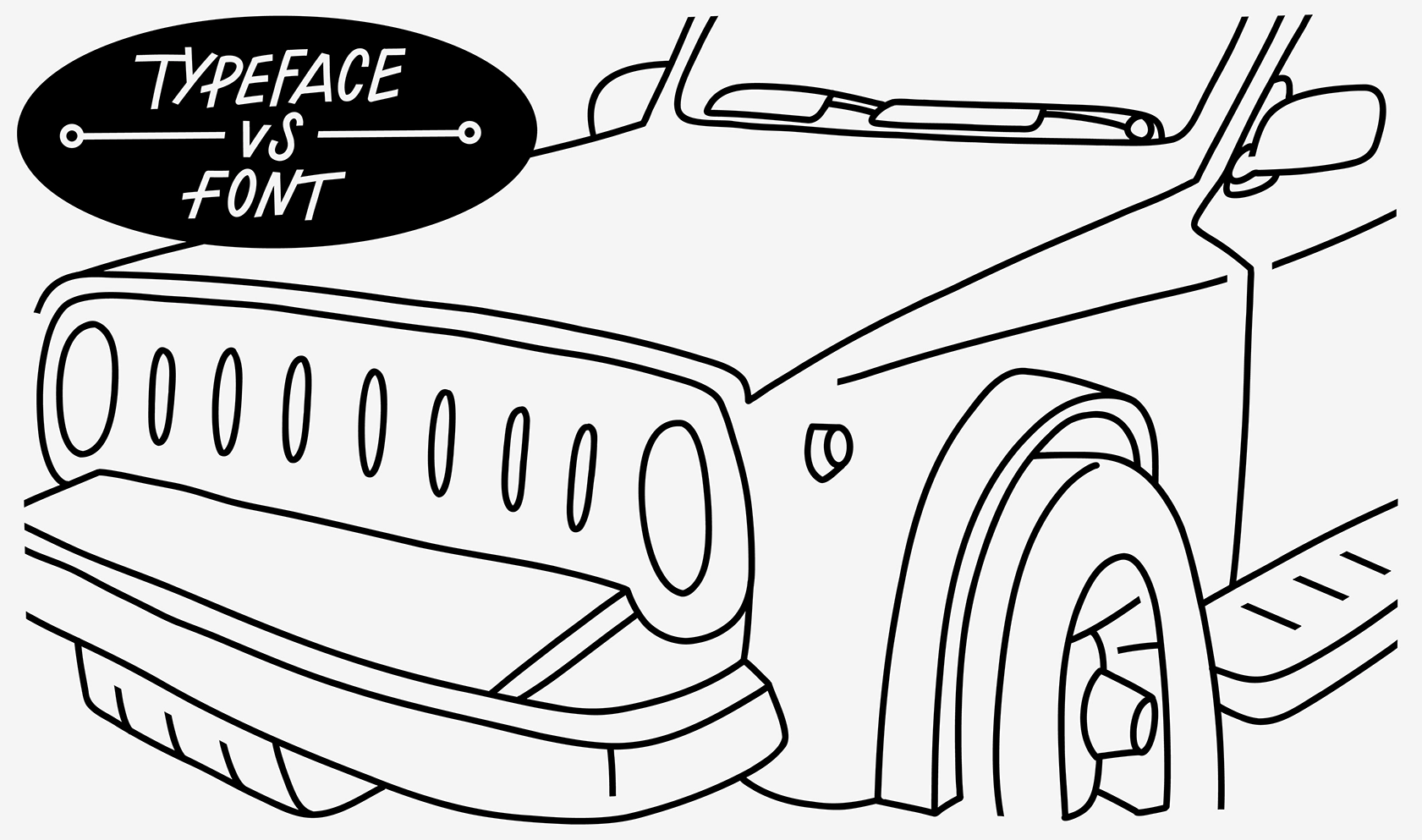
Typeface vs. font
Have you ever found yourself wondering whether you should use the term font or typeface? You don’t have to be a type designer to use this terminology confidently. We have created this short article to help you understand the difference between these two terms and to simplify your future communication in the graphic design field. Both terms typeface and font describe the result of type design work but refer to it from different aspects of typography. Let’s dive into the details of typeface vs. font definition and their roles in type design.
What is a typeface?
We use typeface while talking about the design of letters and the artistic expression it conveys to the text. It defines the aesthetic style of the alphabet, including shapes of letters, contrast, width, and other parameters of style. We use typeface to name a set of unique design characteristics that make up a family of characters, such as CoFo Holz or CoFo Peshka. Typefaces are the fundamental and aesthetic element in type design.
What is a font?
While a typeface describes the look of the text, a font is a digital file that applies this design to a specific size and weight on digital platforms. To understand the difference between font and typeface, we need to define the term font. It originates from Old French fondre, meaning melt. It came from the process used in early type foundries to produce metal type for printing. Molten metal was poured into molds to create individual letters. By the 17th century, the term found referred to a complete set of letters for a specific typeface and size.
Today, font refers to the specific style of a typeface, including its size and weight, as it is used in a particular context.
The term font primarily relates to the technical aspects of a file rather than its aesthetics or style. It refers to the technology of transforming the typeface into text on a page or screen. Essentially, a font is what you use when you type characters on a computer or printing device.
So what is a font? A font is a digital file that instructs your computer or printer how to display the characters of a typeface. A font file holds more than just the typeface design—it also includes metadata and technical features, such as kerning and hinting, which dictate how characters will appear in different devices.
What is a font family?
Font family vs. typeface: While a typeface is a concept that refers to the aesthetics of characters and can be represented by one style, a font family includes all the typeface variations.
A font family is a group of related fonts that have a consistent character set and vary in weight, width, or other aspects. Various fonts from the same font family provide the design versatility while maintaining the visual consistency. For example, the CoFo Sans font family includes CoFo Sans Light, CoFo Sans Regular, CoFo Sans Bold, and other individual styles.
What is Type?
Type is a broad concept related to the history and process of designing typefaces. It’s barely used in relation to a specific font design. You can find this term in historical materials referring to typefaces from specific time periods or the physical metal letters used in typesetting.
How do I use the terms correctly?
Here are a few examples where you could use the terms typeface, type, or font:
Typeface
The term typeface is used when referring to the stylistic parameters of the letters. A typeface can be seen as the overall design of a character collection, often reflecting a particular historical period or function:
• Futura is a geometric sans-serif typeface designed by Paul Renner and released in 1927.
• The first monospaced typefaces were created for typewriters to fit their technical limitations.
• The typeface is optimized for use in headlines.
Type
The term type can be used while talking about the general concept of designing letters in the united system:
• The technology of printing text using movable type was invented in China.
• A piece of cast metal type with the s character on it.
• Type designers face a lot of choices on the way of creating the original digital typeface.
• Modern digital type foundries accumulate and distribute typefaces.
Font
The term font is used to refer to a digital file or physical letterforms of a specific style, size, and weight. We also say font when talking about the typeface as software and the technical aspects of using it in programs.
• Variable font is a new font format that can include a variety of styles in one file.
• Font engineers solve technical issues of font representation and work within an operating system.
• Digital fonts can be scaled to any size without losing quality.
Further use
Understanding the difference between font vs typeface is essential for effective text communication in the field of typography. A typeface sets the overall artistic tone and style, while a font specifies the practical application of that style in a specific size and format.